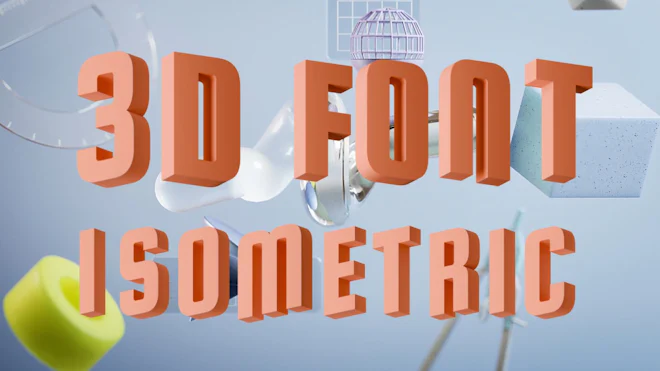
This stock motion graphics video pack includes 72 different clips of 3D isometric typefaces on a transparent alpha channel in a seamless loop. Includes 26 capital letters and 26 lower case letters, 10 numbers and 10 symbols.